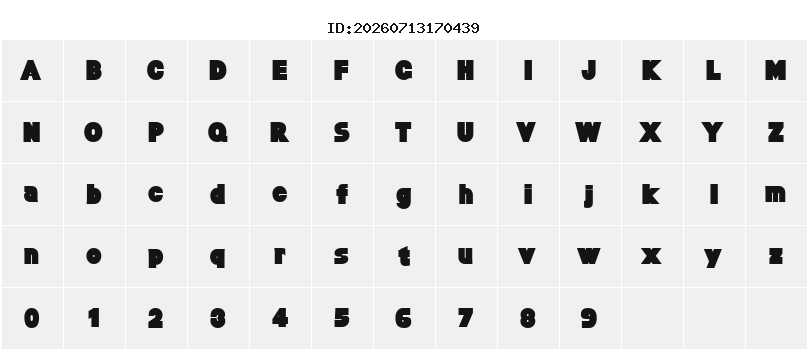
• Font Name: Baltar
• Designer: Ray Larabie
• Manufacturer: Larabie Fonts
About Baltar.ttf
Baltar.ttf is a modern, elegant sans-serif font designed for ultimate readability and visual harmony. Perfect for branding, headlines, web design, and print materials.